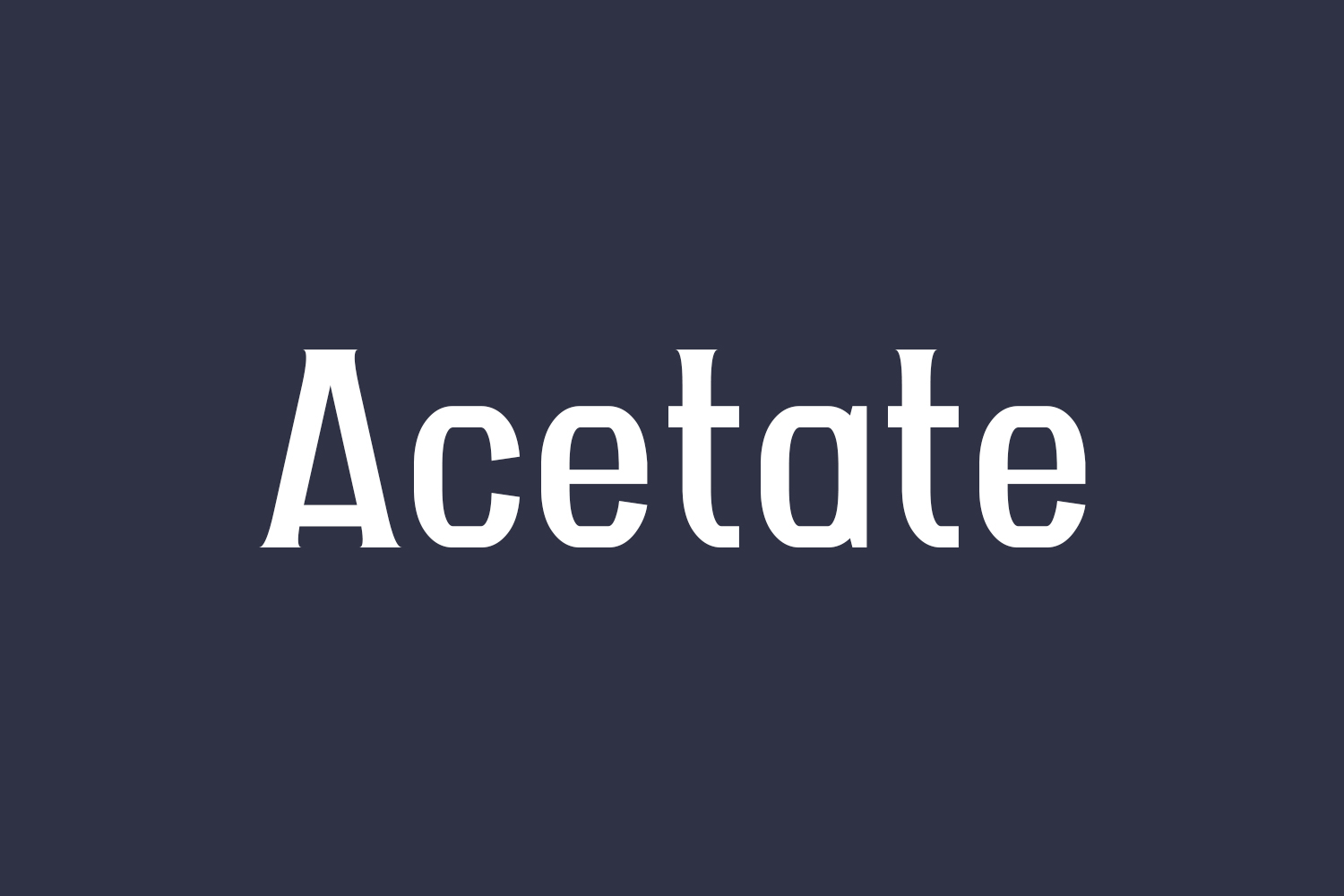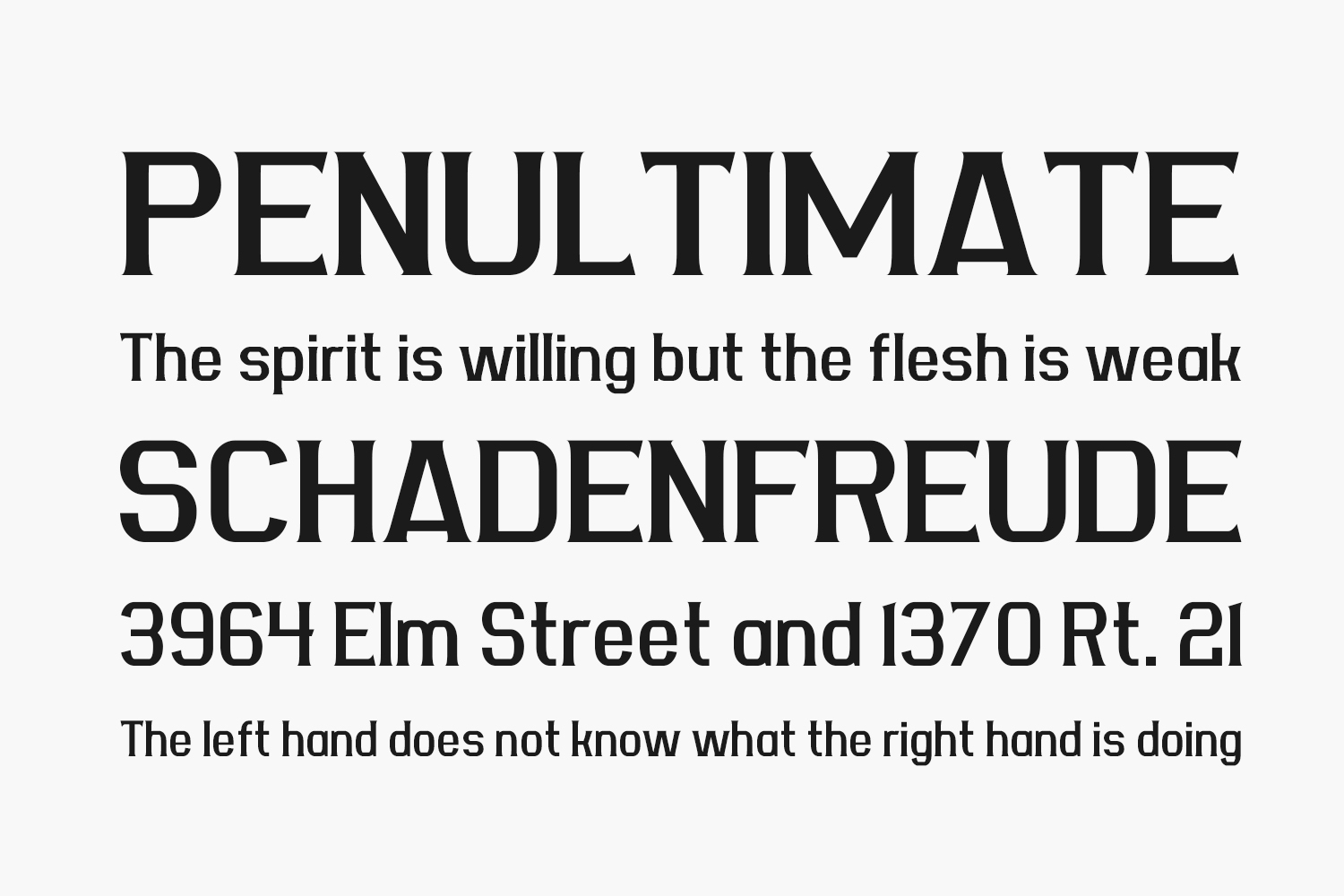
Acetate Free Font is a simple but striking typeface. Download the font for free if you need it for personal use or purchase the full version for commercial use.